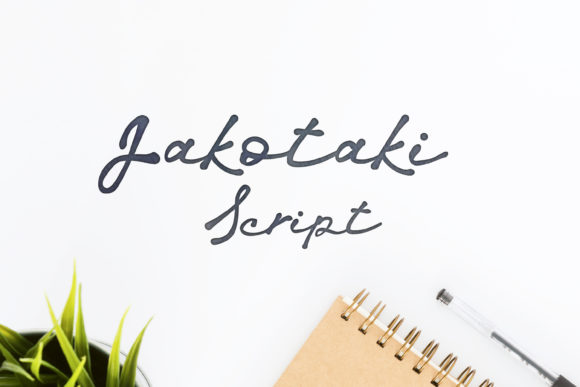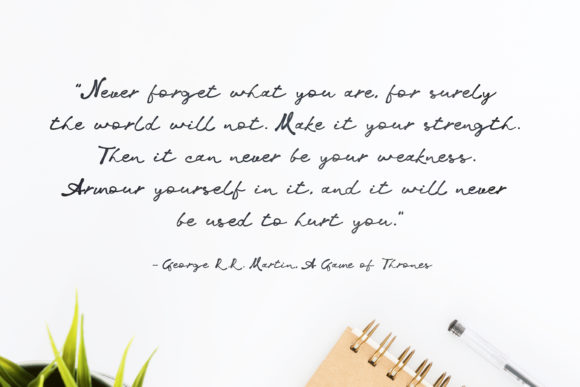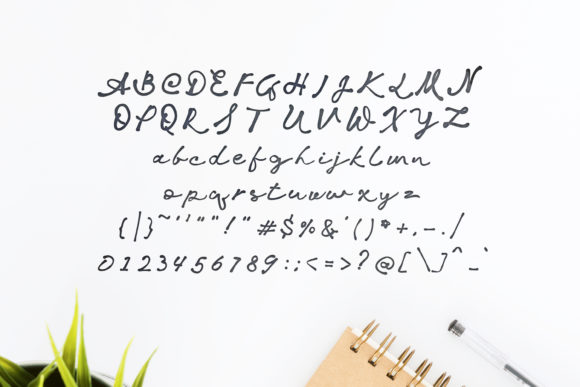
Jakotaki Font
About Jakotaki Font
Jakotaki is inspired by classic typography and brings its own unique style to any design project. Get creative with its unique style, and use it to brighten up your upcoming projects!